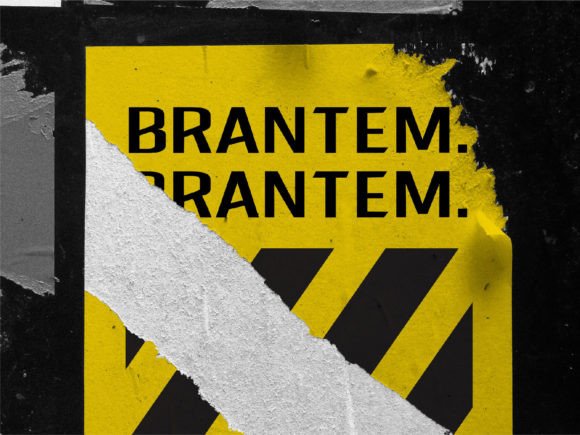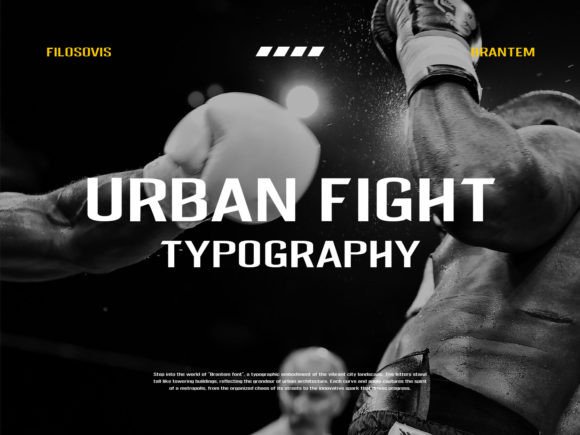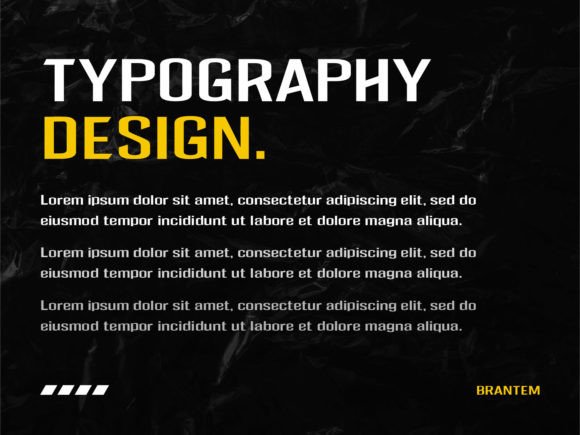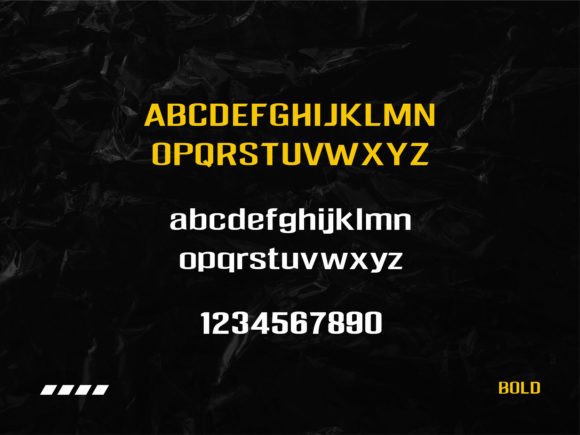
Introducing Brantem Font: The Ultimate Urban Style Choice for Designers and Crafters
In the world of typography, fonts play a crucial role in conveying the tone and personality of a design. For designers and crafters looking to add a bold and urban touch to their work, the Brantem font is an excellent choice. Characterized by its bold and urban style appearance, the Brantem font is perfect for creating eye-catching titles, flashy banners, and artistic designs.
What Makes Brantem Font Stand Out?
The Brantem font is designed to make a statement. Its bold and urban style gives it a unique edge that sets it apart from other fonts. The font’s design is carefully crafted to provide a perfect balance of artistry and casualness, making it ideal for designers and crafters who want to add a touch of personality to their work.
One of the key features of the Brantem font is its versatility. It can be used for a wide range of design projects, from posters and flyers to social media graphics and website headers. The font’s bold and urban style makes it perfect for creating attention-grabbing titles and headings that demand attention.
Perfect for Bold Titles and Flashy Banners
The Brantem font is specifically designed to look great on bold titles and flashy banners. Its bold and urban style makes it perfect for creating eye-catching headings that grab attention. Whether you’re designing a poster, flyer, or social media graphic, the Brantem font is an excellent choice for creating bold and attention-grabbing titles.
The font’s design is also optimized for use on digital platforms. It looks great on screens, making it perfect for website headers, social media graphics, and other digital designs. The Brantem font is also highly legible, even at small sizes, making it ideal for use on a wide range of design projects.
Adding an Artistic and Casual Touch to Your Design
The Brantem font is designed to add an artistic and casual touch to your design. Its bold and urban style gives it a unique personality that sets it apart from other fonts. The font’s design is carefully crafted to provide a perfect balance of artistry and casualness, making it ideal for designers and crafters who want to add a touch of personality to their work.
The Brantem font is perfect for designers and crafters who want to create designs that are both bold and artistic. The font’s design is highly versatile, making it suitable for use on a wide range of design projects, from posters and flyers to social media graphics and website headers.
Tips for Using Brantem Font Effectively
To get the most out of the Brantem font, here are some tips for using it effectively:
- Use it for bold titles and headings: The Brantem font is perfect for creating attention-grabbing titles and headings. Use it to add a bold and urban touch to your design.
- Pair it with other fonts: The Brantem font pairs well with other fonts, especially those with a more minimalist design. Use it in combination with other fonts to create a unique and visually appealing design.
- Experiment with different colors: The Brantem font looks great in a wide range of colors. Experiment with different colors to find the one that works best for your design.
In conclusion, the Brantem font is an excellent choice for designers and crafters looking to add a bold and urban touch to their work. Its bold and urban style appearance makes it perfect for creating eye-catching titles, flashy banners, and artistic designs. With its versatility, legibility, and artistic personality, the Brantem font is a must-have for any designer or crafter looking to take their designs to the next level.